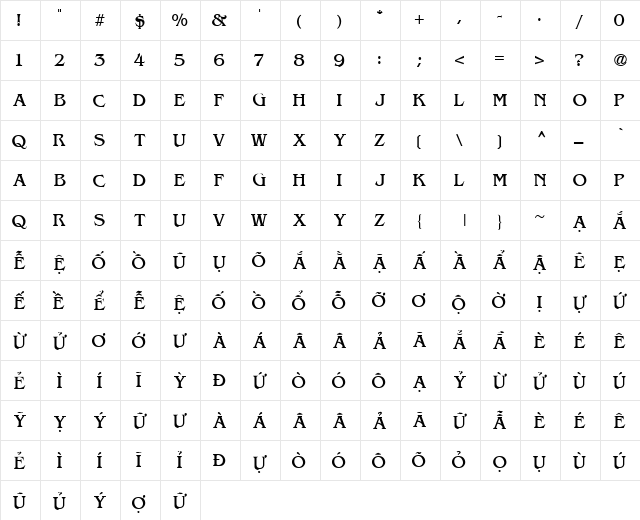
VI Van Tho Hoa Regular Font Preview
VI Van Tho Hoa Regular
VI Van Tho Hoa Regular Font Details
Design Context for VI Van Tho Hoa Typeface
VI Van Tho Hoa offers clean, dependable letterforms without strong stylistic allegiance, making it a practical choice for designers who need flexibility.